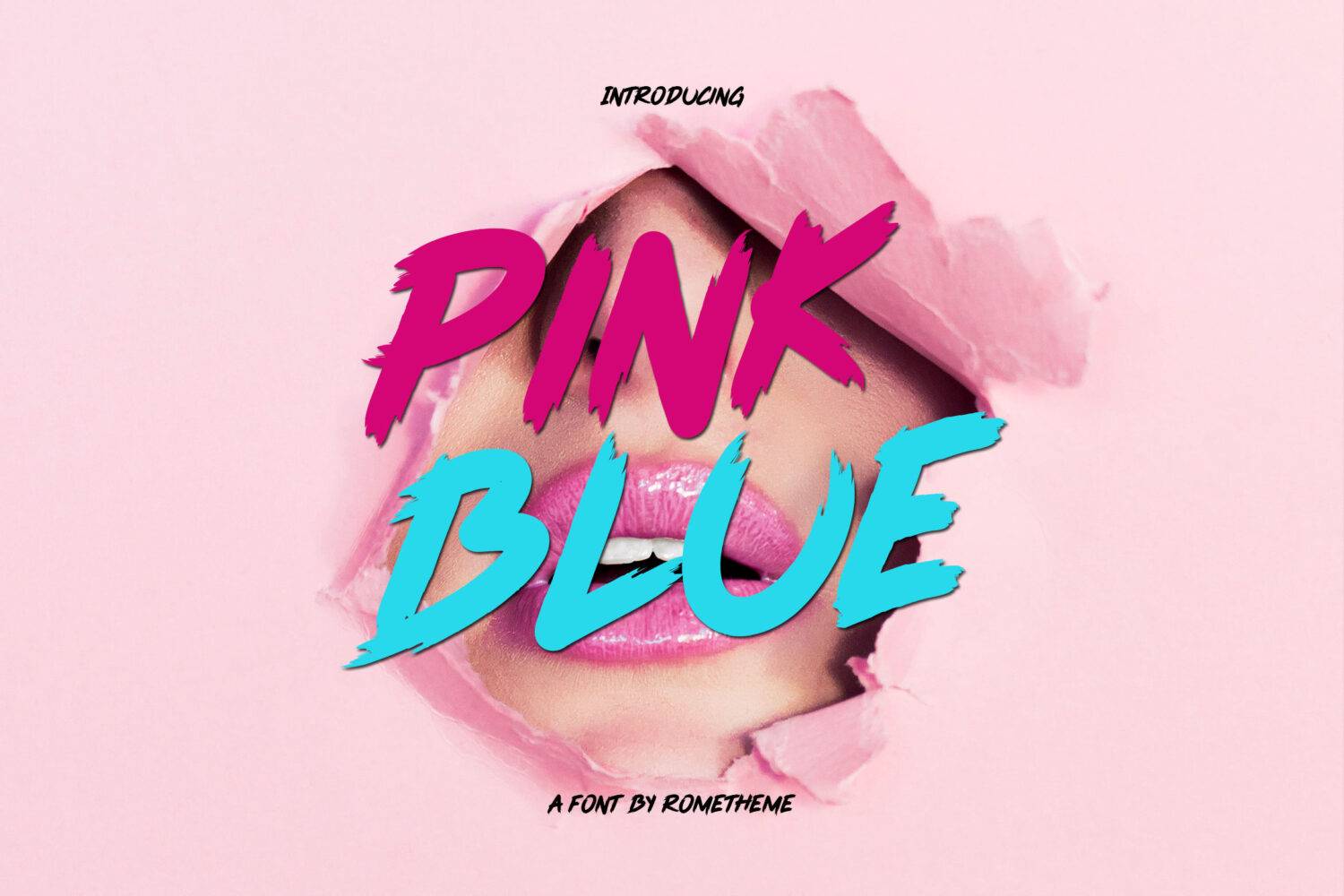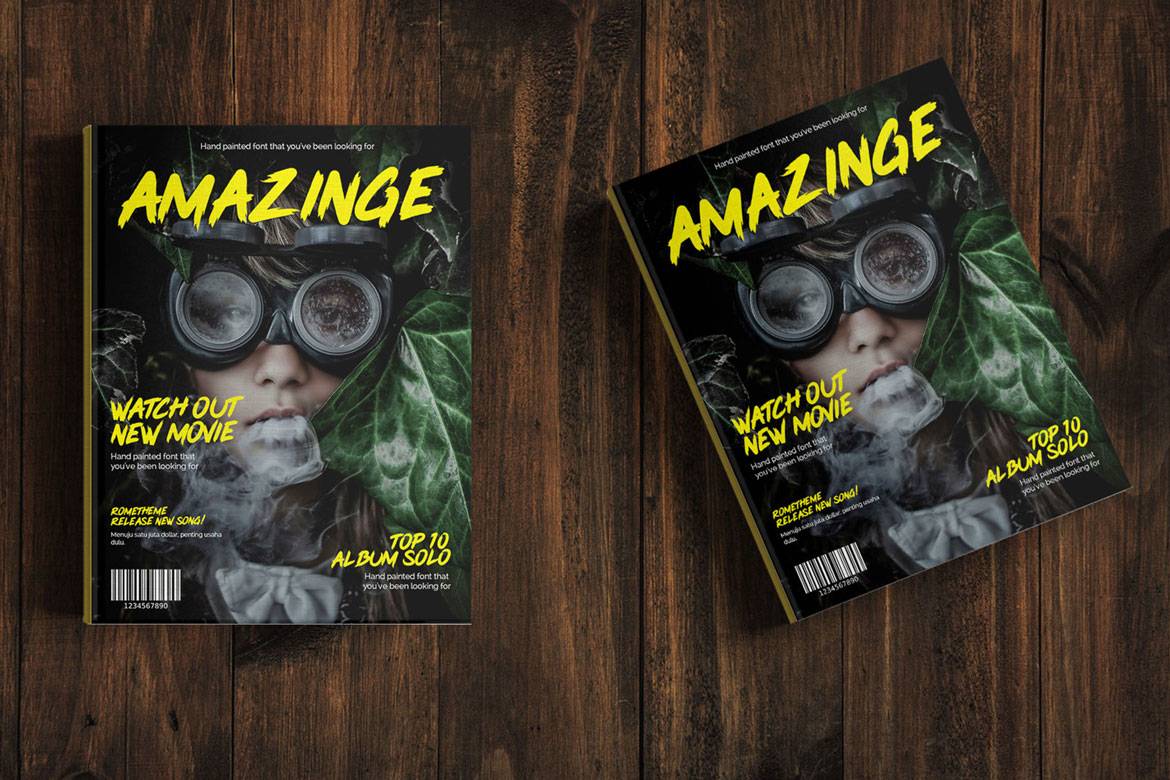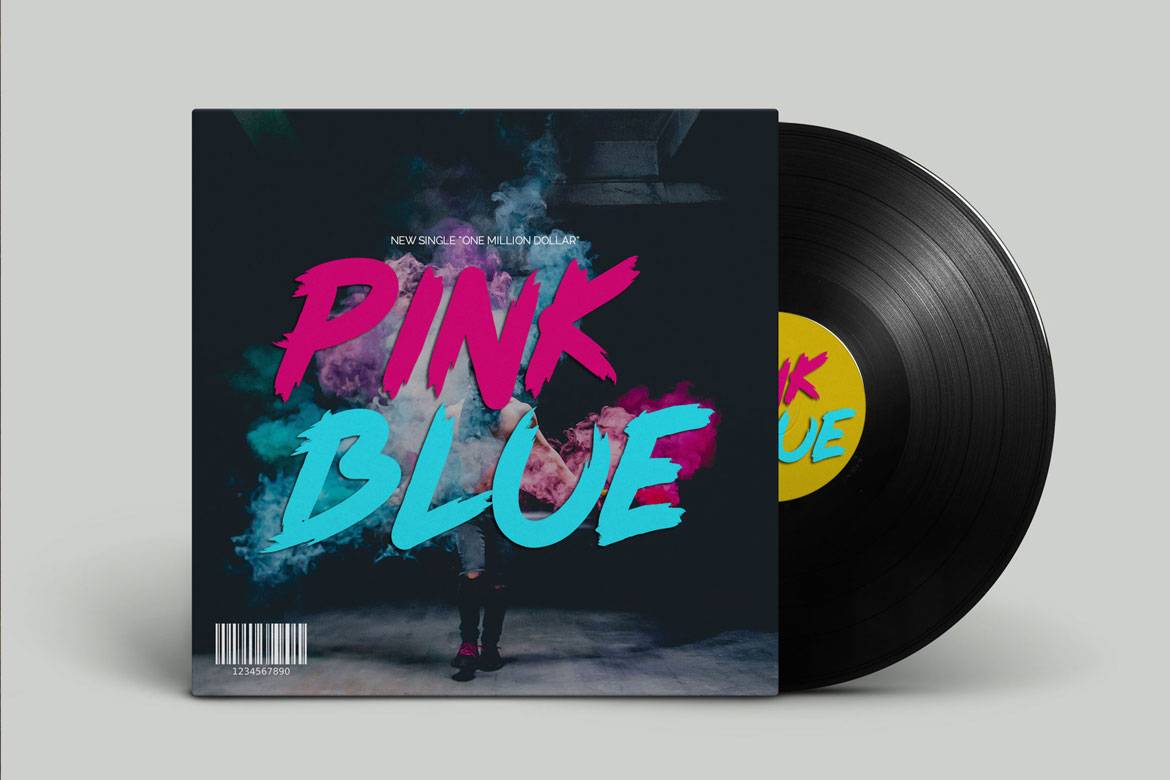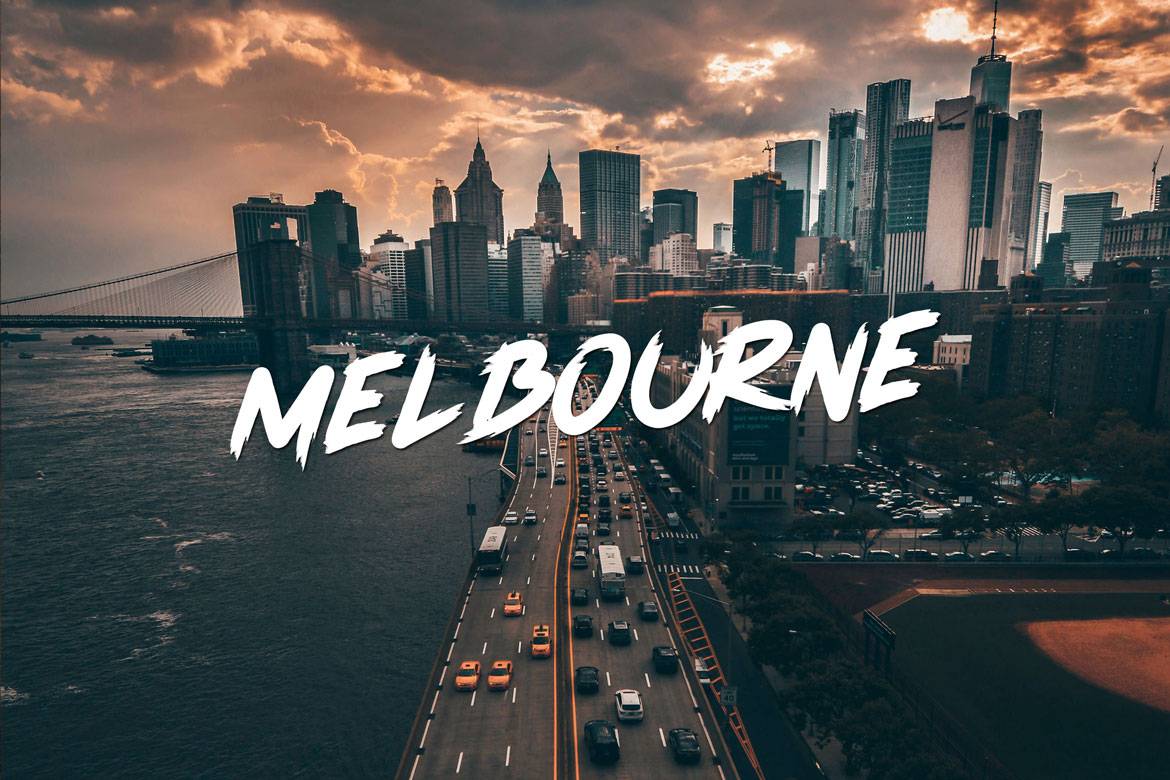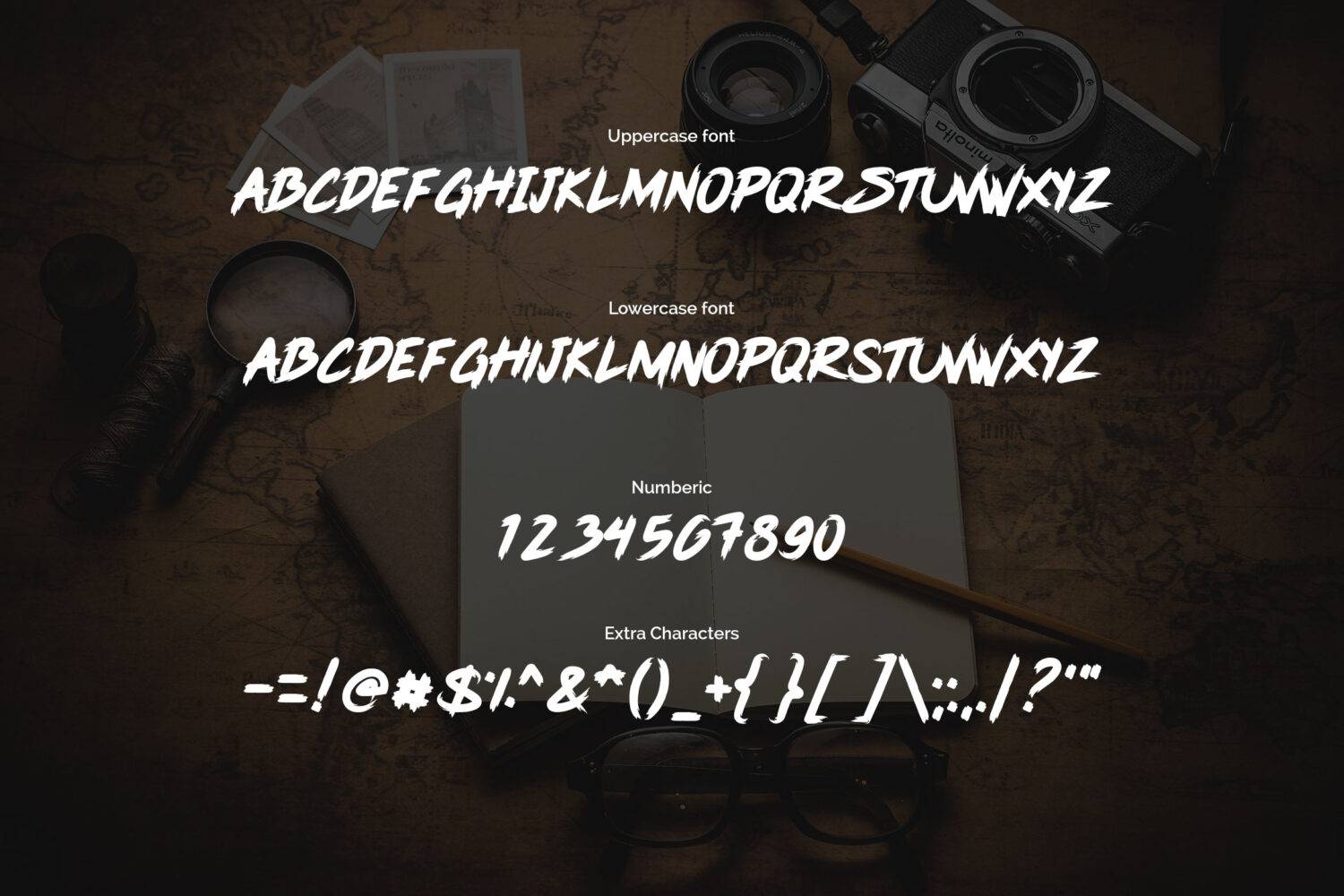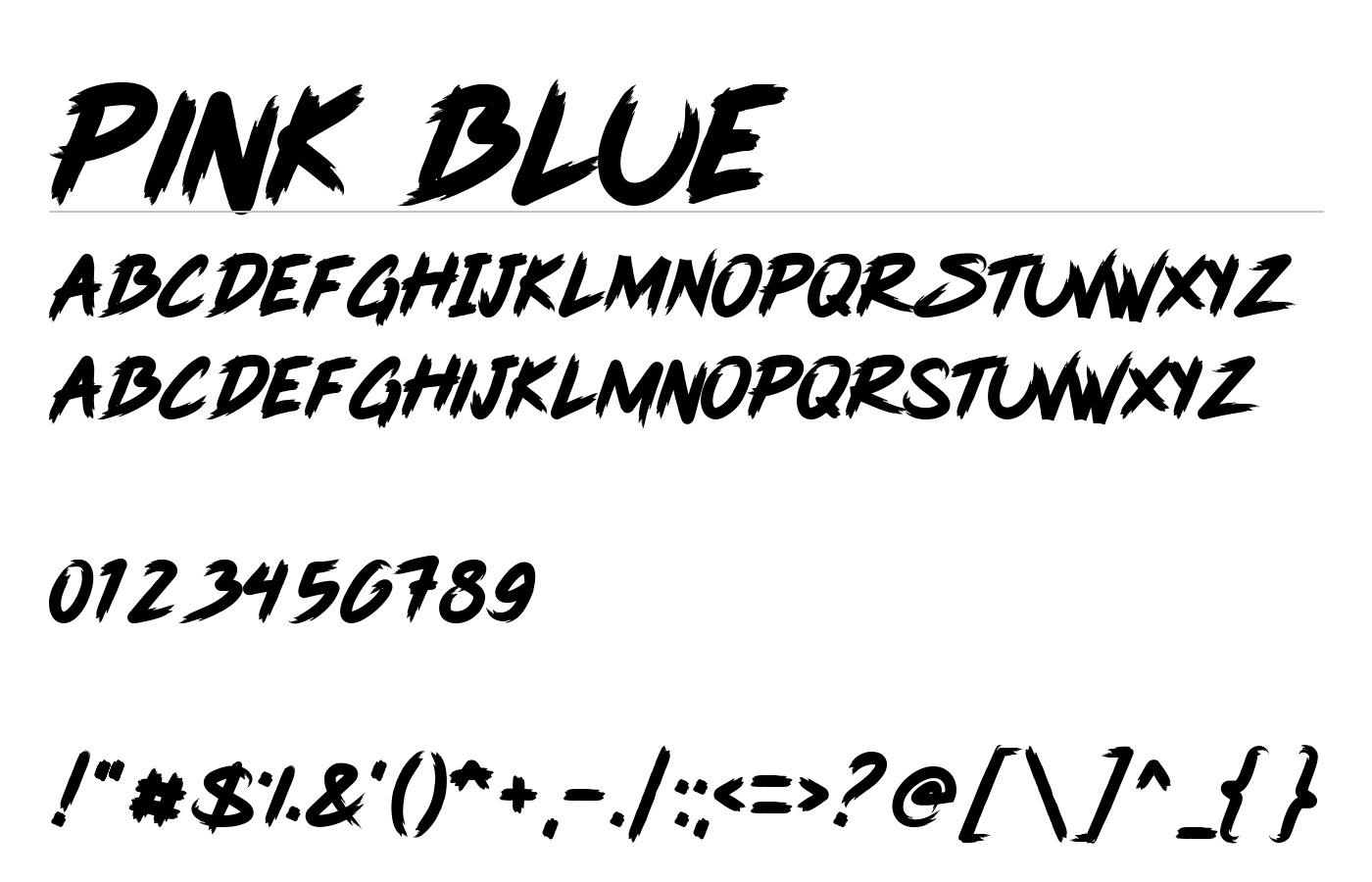
Pink Blue is a bold, energetic brush script font with a dynamic, hand-painted feel. Its thick, textured strokes and informal style make it perfect for creative, eye-catching headlines, branding, and designs that want to express a lively, artistic personality. This font works well for projects needing a strong, casual impact, such as sports, entertainment, or streetwear themes.
Pink Blue Font
About Pink Blue Font